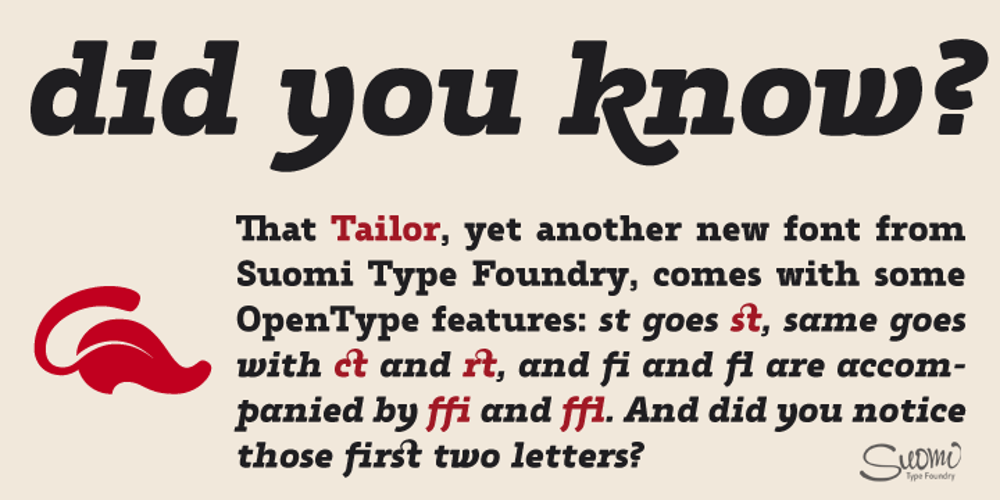
Tailor Font Family was designed by Tomi Haaparanta and published by Suomi. Tailor contains 2 styles and family package options. Tailor was a study of slab serif style with round and comfortable feel. I wanted to merge round shapes with exaggerated ink traps for legibility.